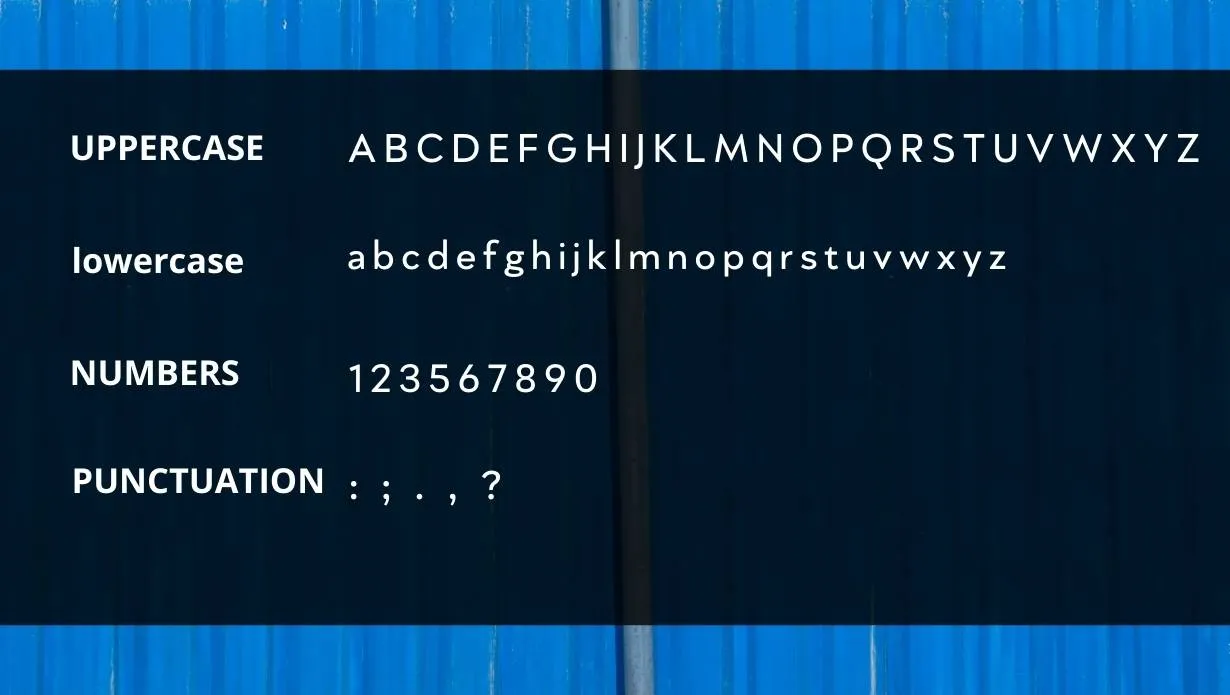
Rapor FontĀ is a sans-serif typeface designed by Cem Karayel in 2013. The face has a strong geometrical form and is particularly suitable for headlines and posters.
Rapor Font was inspired by classic geometric sans-serif faces such as Futura and Avant Garde. It has a slightly condensed letterform to give it a more compact feel, and the counters are open to give it a more contemporary look.
| Name | Rapor Font |
| Designer | Cem Karayel |
| Style | Sans Serif |